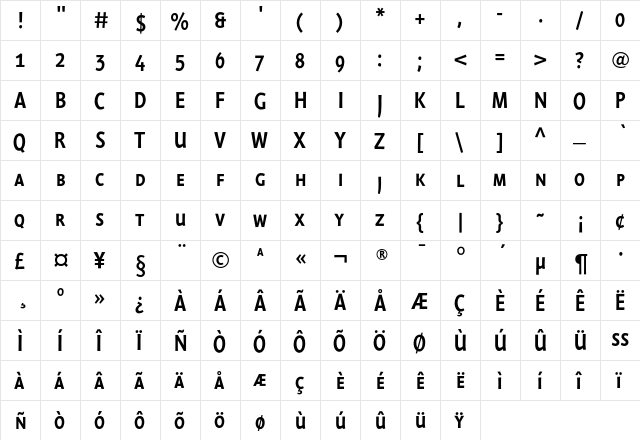
HerbertEF RegularSmallCaps
Design Context for HerbertEF Typeface
HerbertEF offers clean, dependable letterforms without strong stylistic allegiance, making it a practical choice for designers who need flexibility.